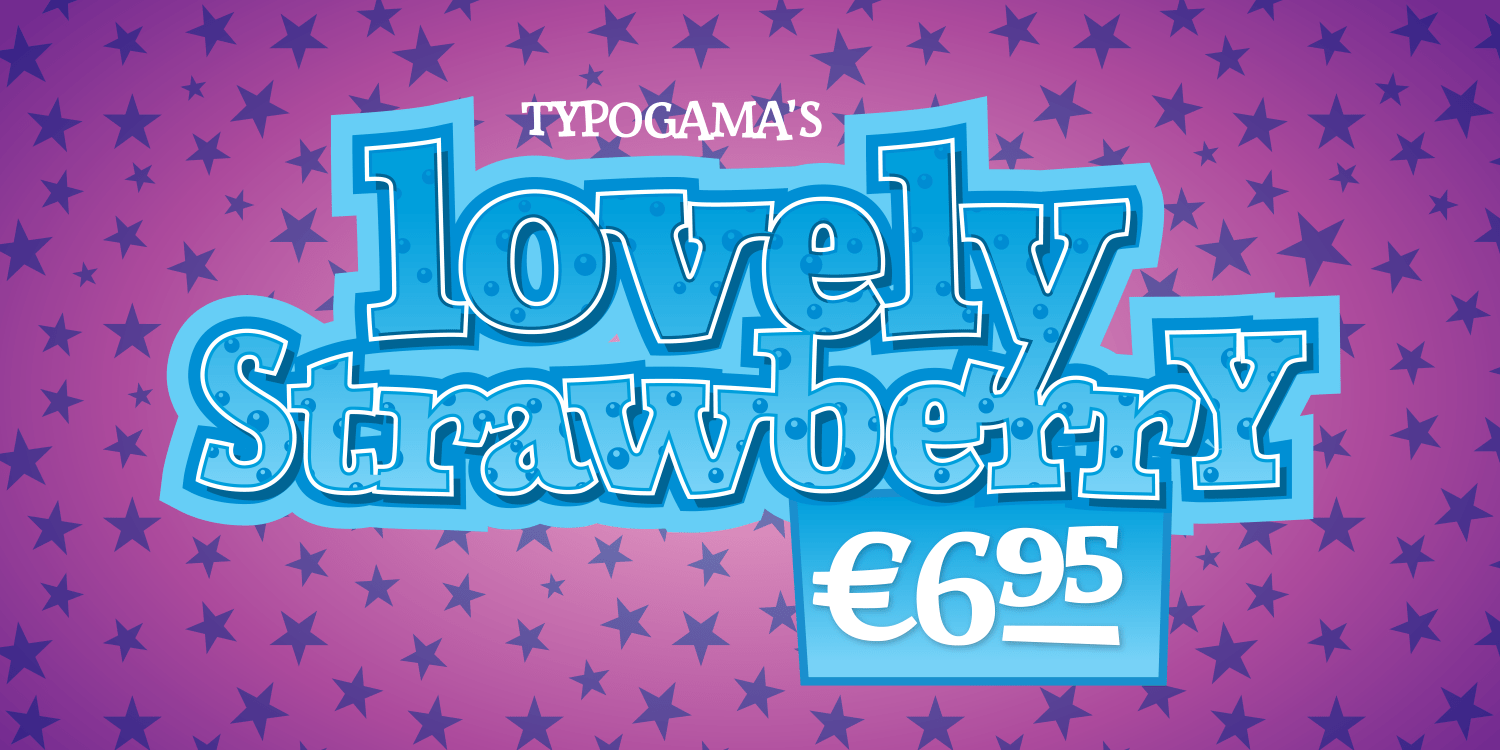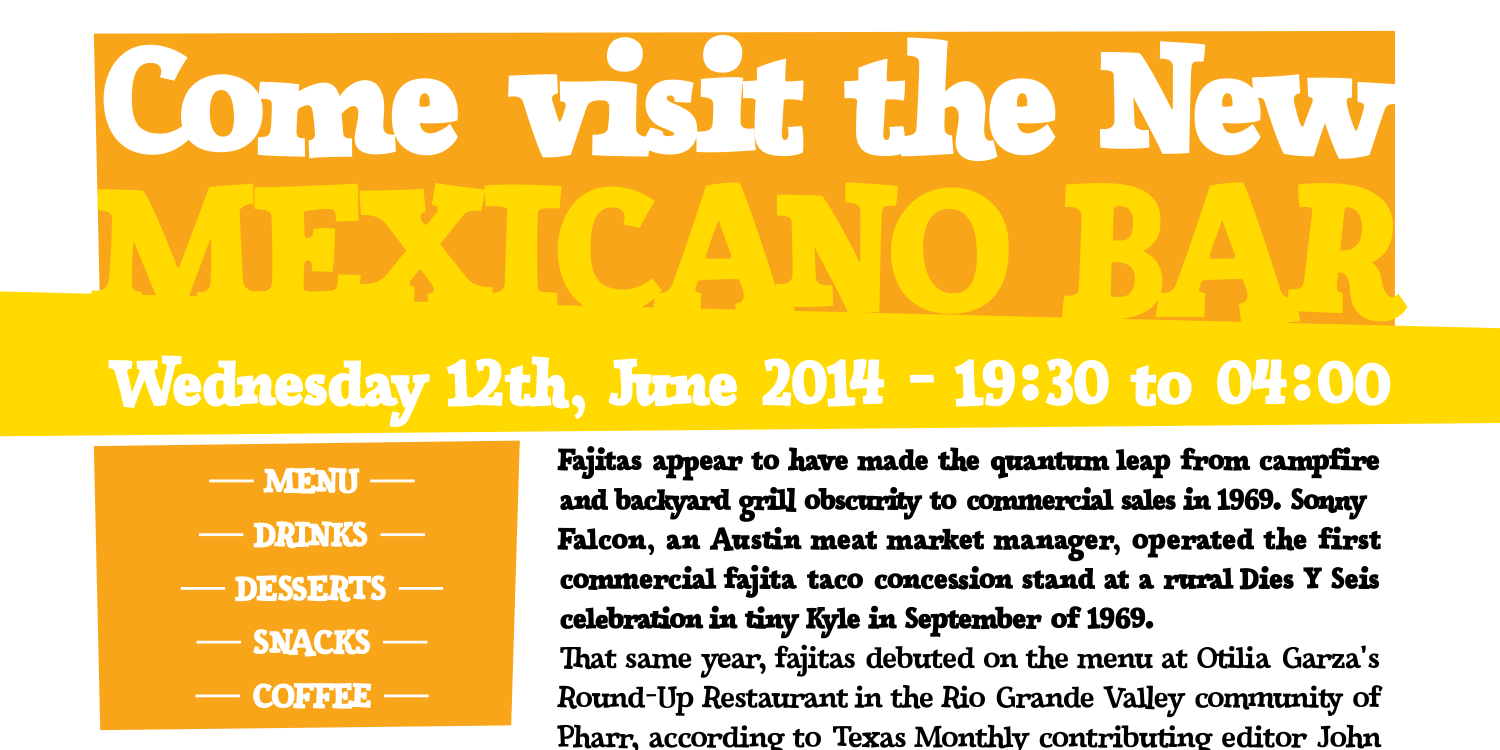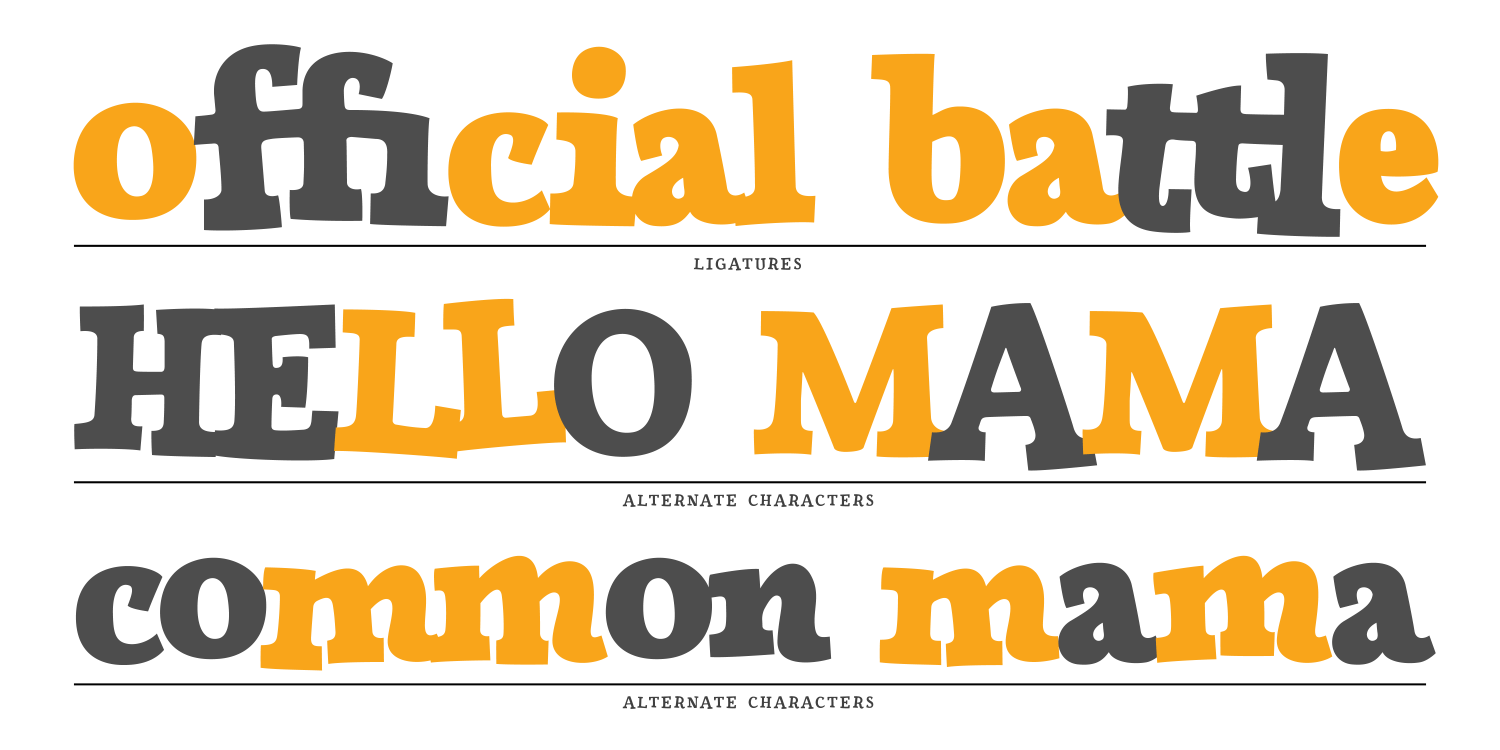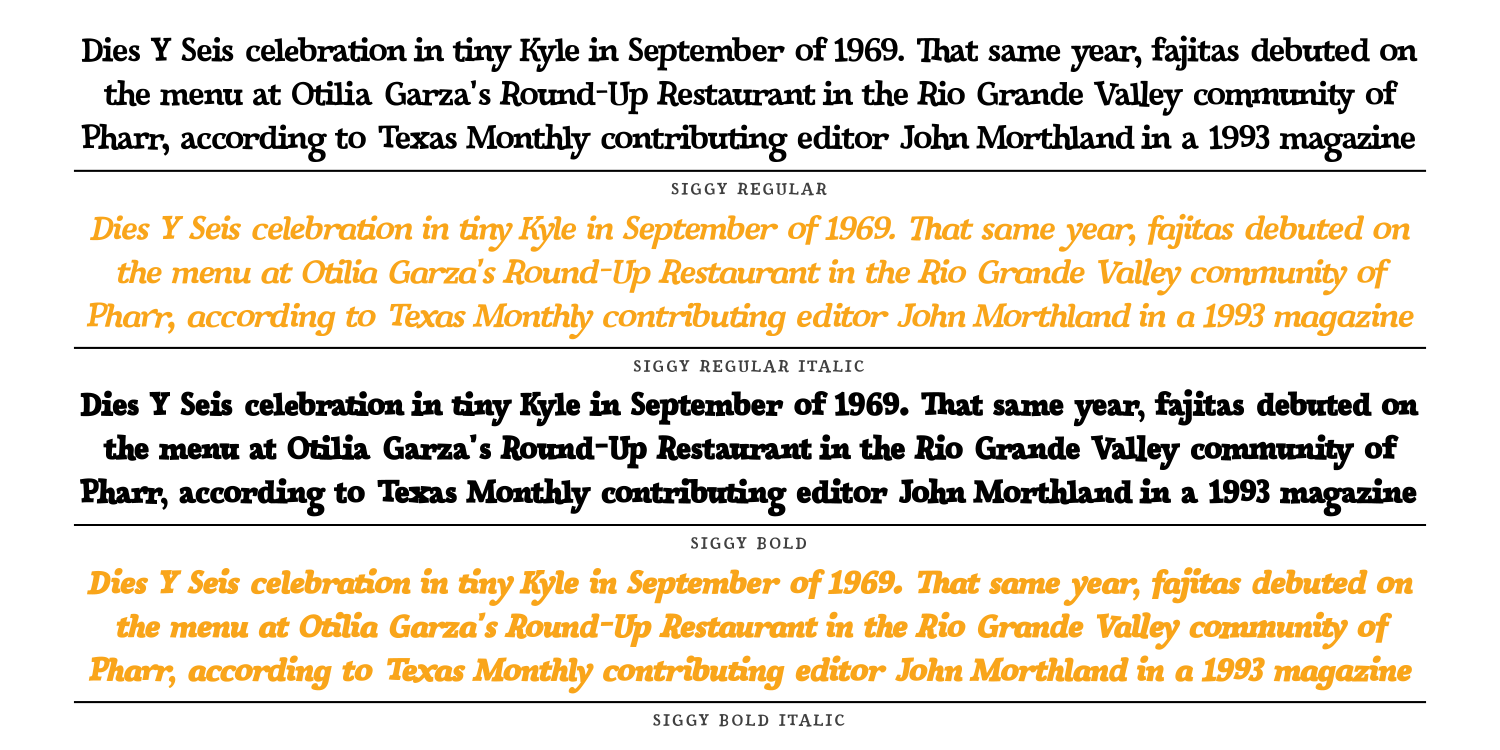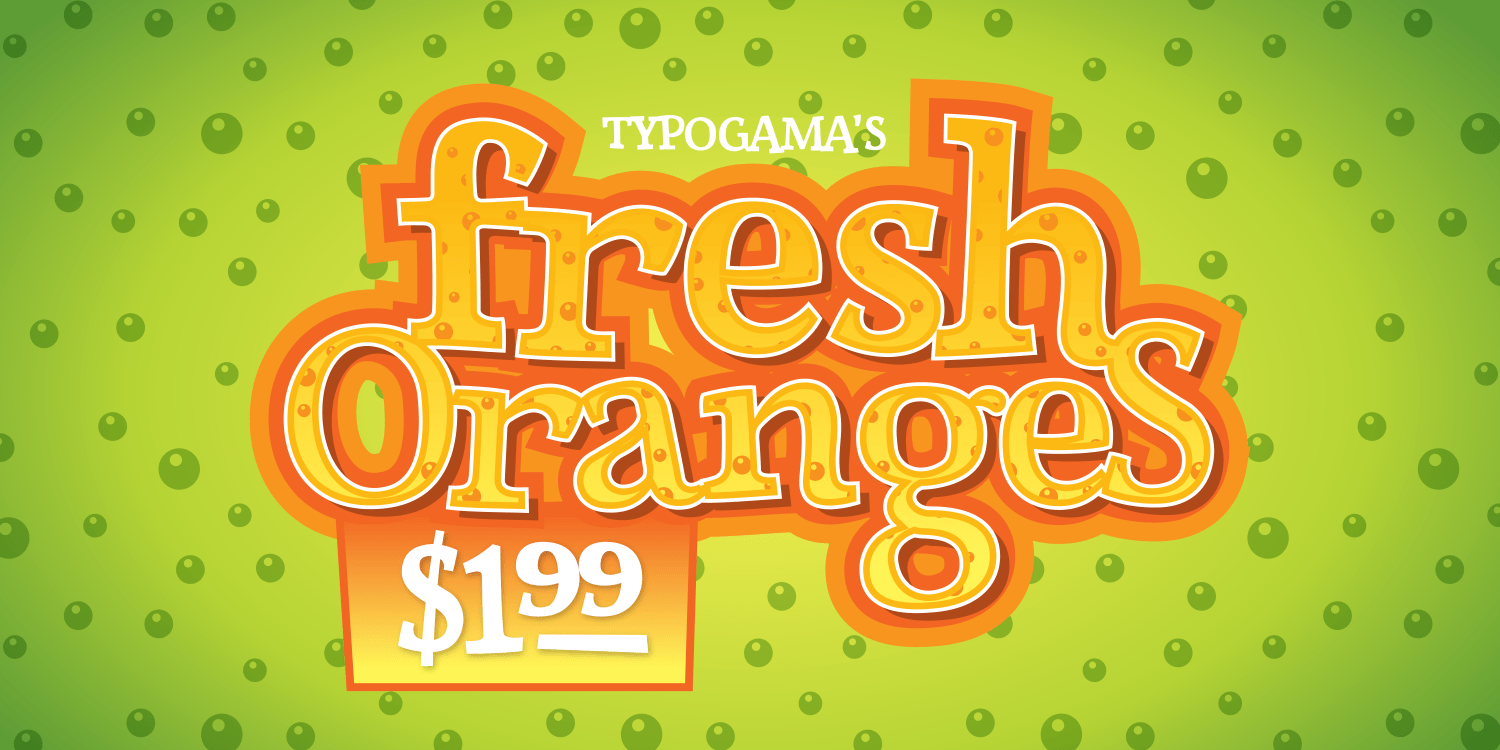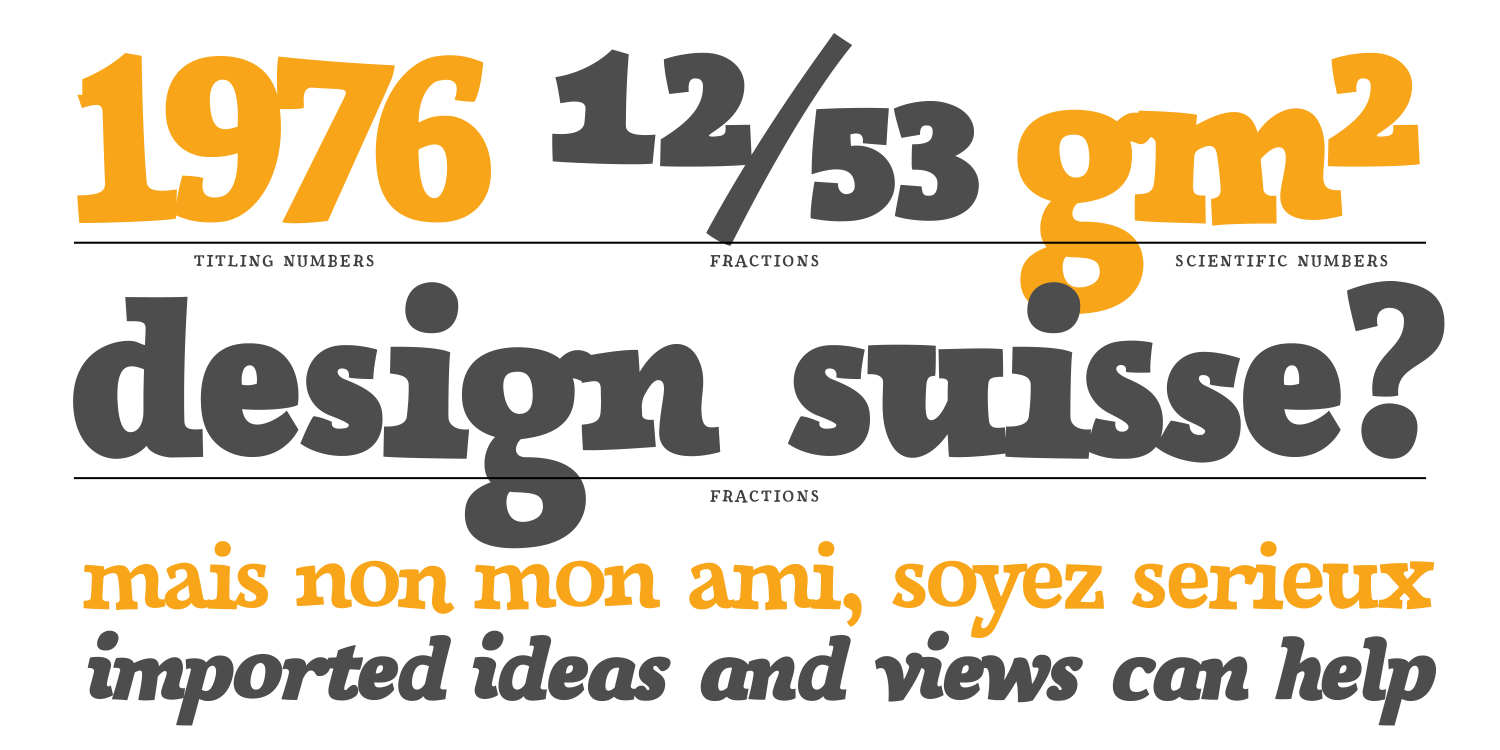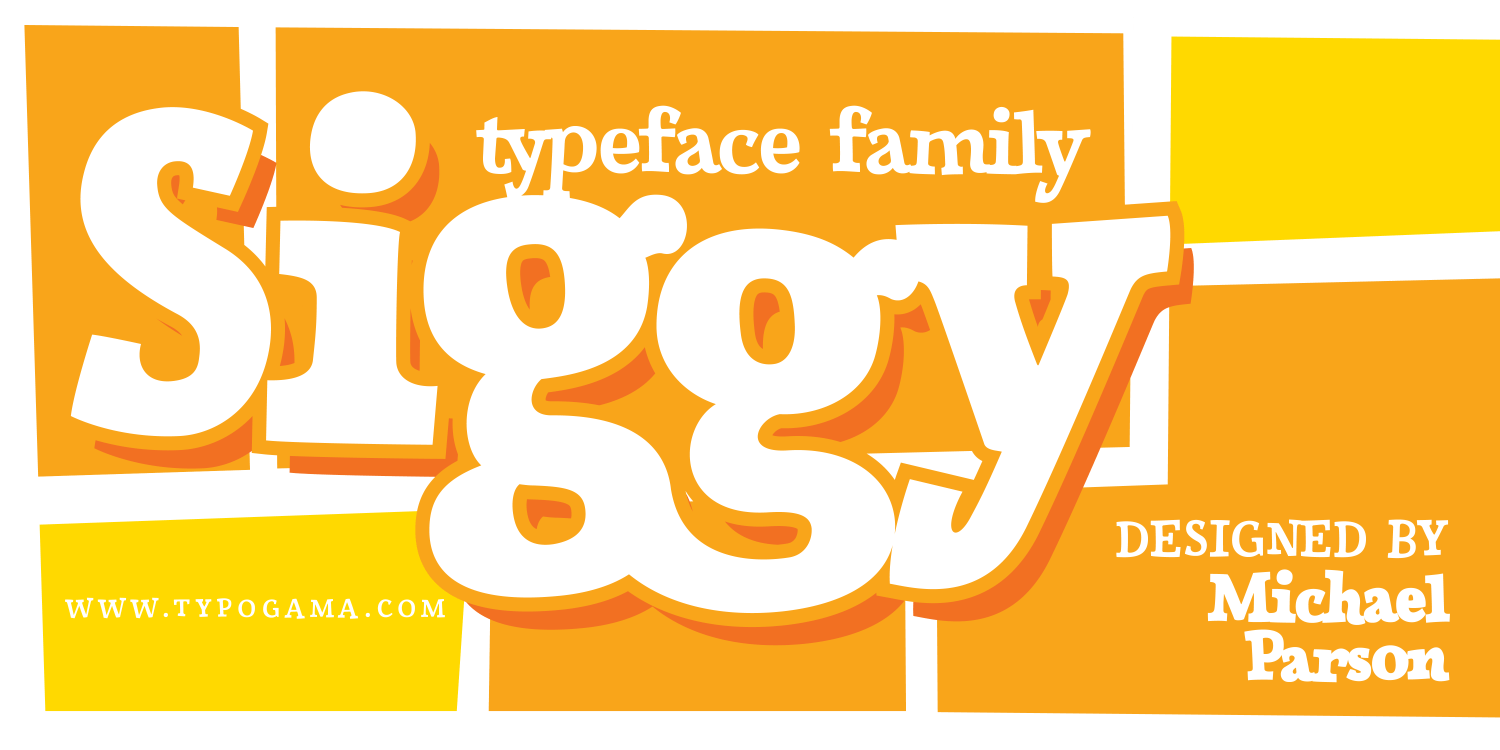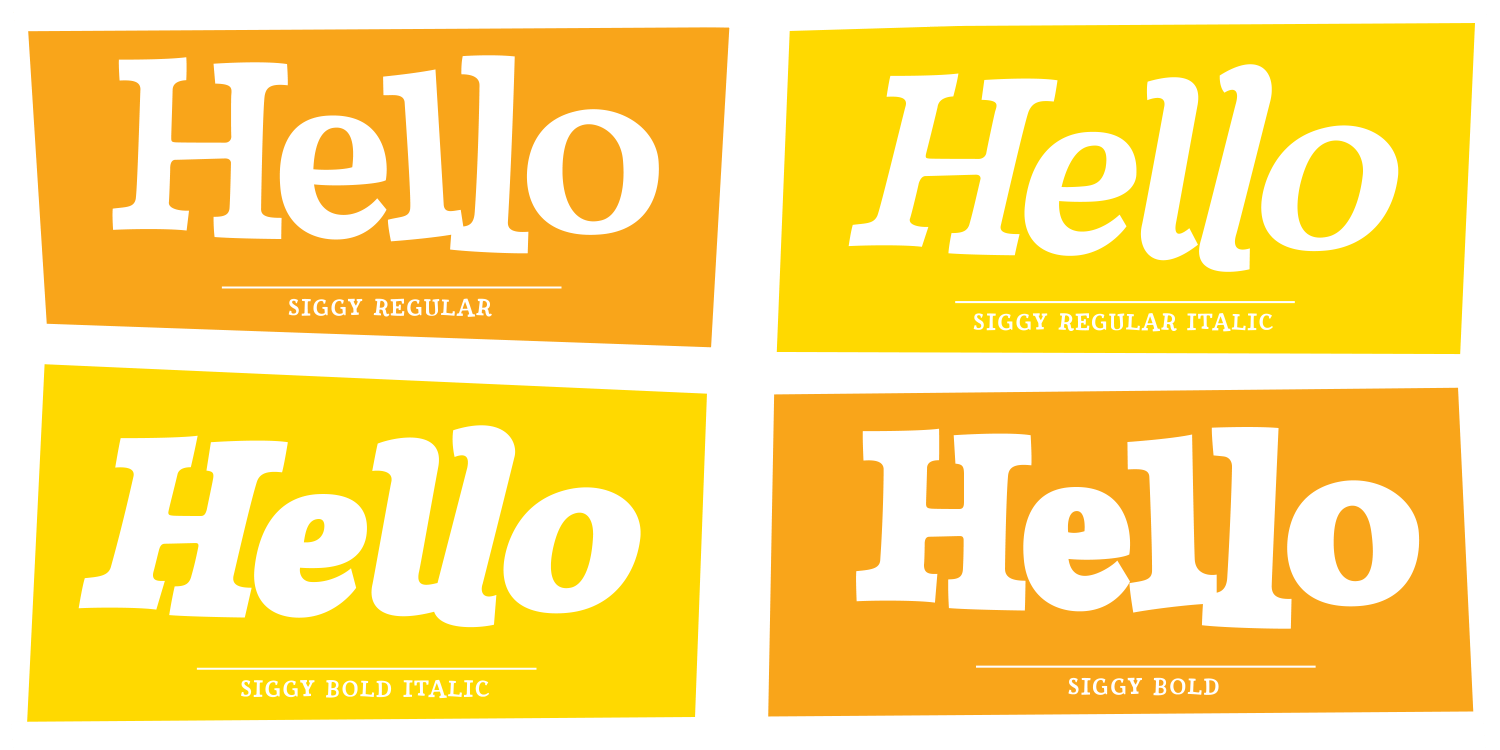
Siggy
About Siggy
The Siggy typeface family has all the traits of a serious serif typeface, but with a little wobble. Originally created as a display typeface, this family of fonts contains 4 styles that allow varied and clear compositions in both text or display settings.…